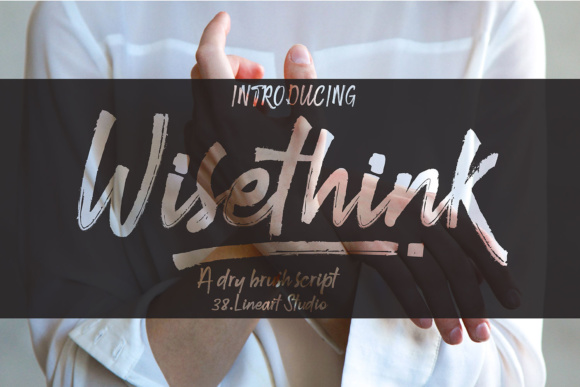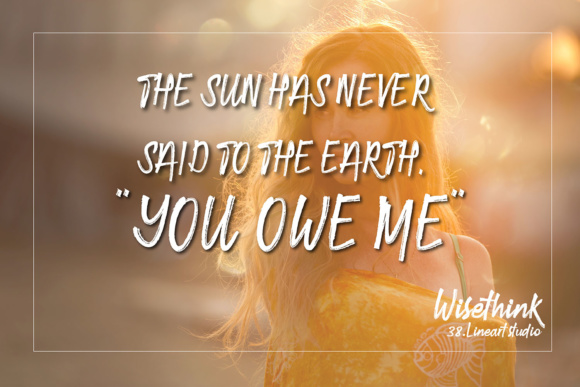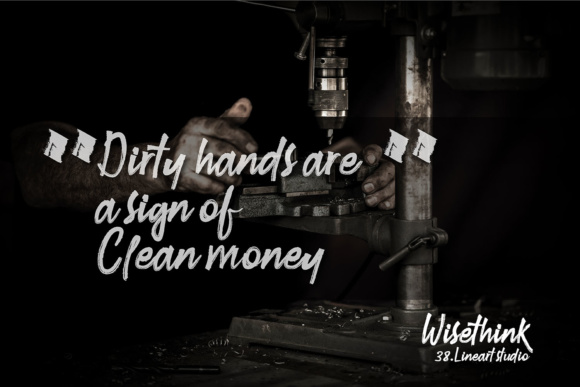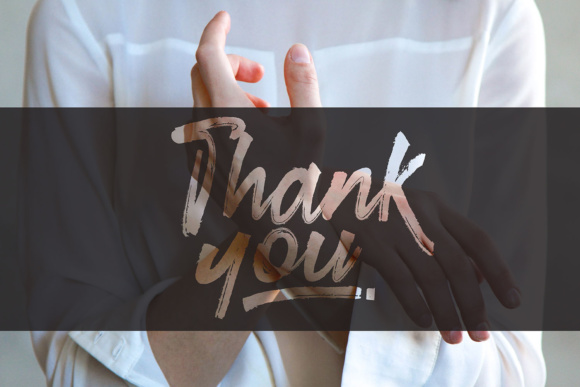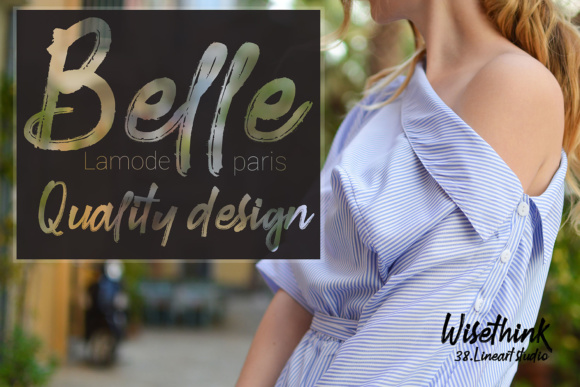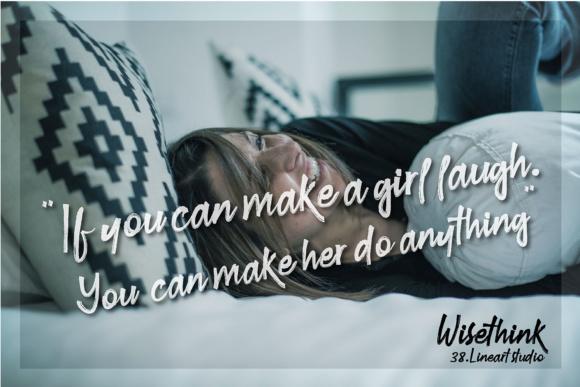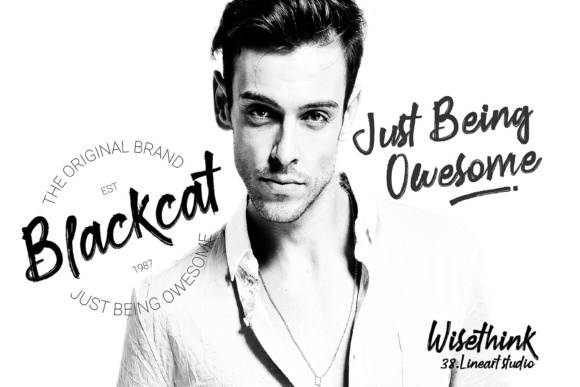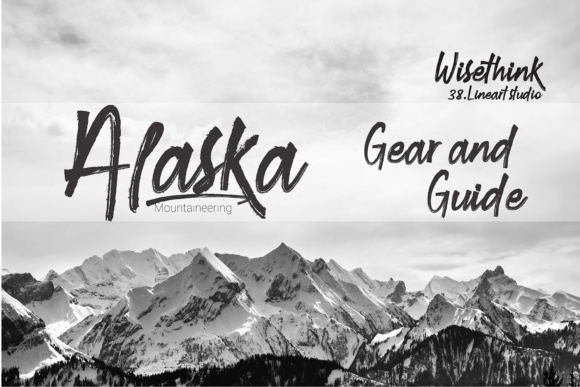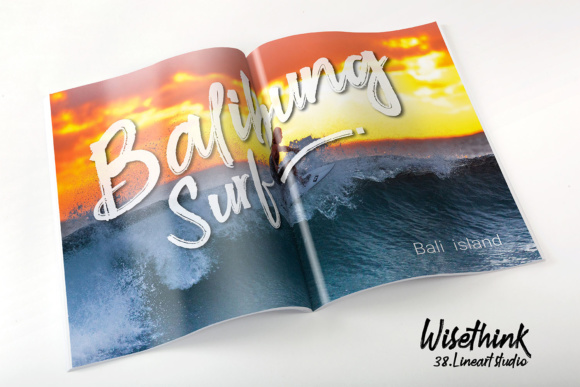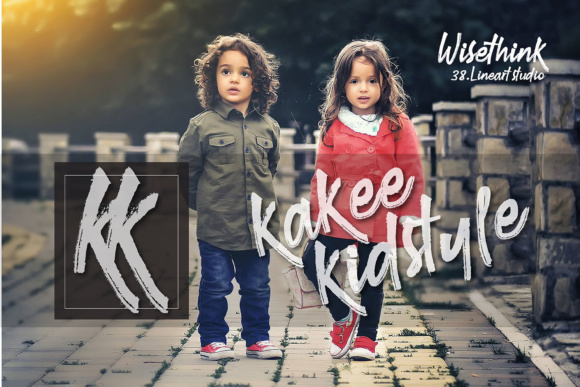
HomeScript FontsWisethink Font Script Fonts Wisethink Font FacebookXPinterestWhatsApp Wisethink Font Poster 2 Wisethink Font Poster 3 Wisethink Font Poster 4 Wisethink Font Poster 5 Wisethink Font Poster 6 Wisethink Font Poster 7 Wisethink Font Poster 8 Wisethink Font Poster 9 Wisethink Font Poster 10 Wisethink Font Poster 11 Wisethink Font Poster 12 About Wisethink Font Wisethink is a hard brush script which will give your design a natural look. DOWNLOAD NOW People also explored Madison Story Font Athalita Font Hellena Script Font Parsley Font Kawilang Font Hello Bro Font Kimme Font Sunshine Font Beauty Andellia Font 303 0 TagsWisethink Font Previous articleRomano FontNext articleBravely Font LEAVE A REPLY Cancel reply Comment: Please enter your comment! Name:* Please enter your name here Email:* You have entered an incorrect email address! Please enter your email address here Website: Save my name, email, and website in this browser for the next time I comment. Personal Use Free Geuli Font Personal Use Free Read more about this font Color Personal Use Free Read more about this font Blessed Font Personal Use Free Read more about this font The Lima Personal Use Free Read more about this font BLOG To increase your work productivity, choose the most readable fonts. In today's fast-paced work environment, where digital communication and information consumption are integral to our daily routines, the choice of fonts can significantly impact... Exploring Font Trends Free Fonts Risk: Why Free Fonts Can Be Dangerous for Designers Top 7 Google Fonts Alternatives for Faster and Privacy-Friendly Web Design (2025)